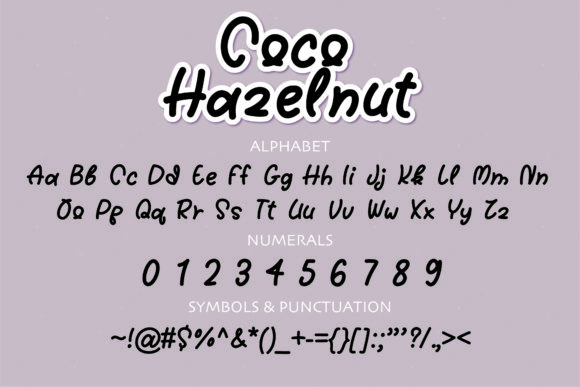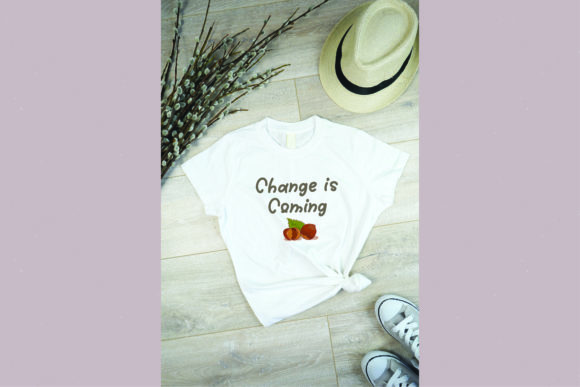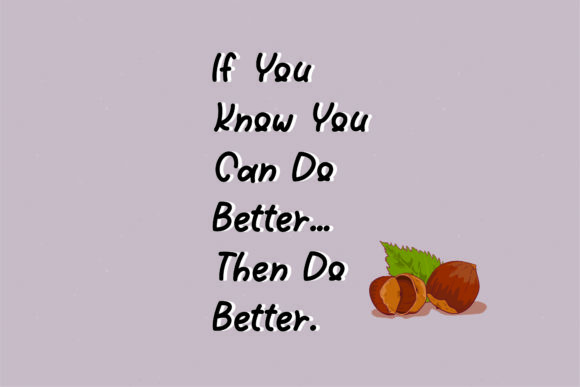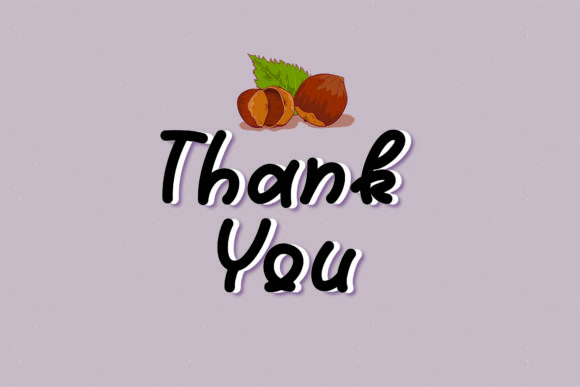
Coco Hazelnut Font: The Perfect Addition to Your Design Arsenal
Are you a designer or crafter looking for a font that can add a personal touch to your creations? Look no further than the Coco Hazelnut font. This adorable, handwritten font is perfect for a variety of design projects, from chalkboard quotes to teaching materials. In this article, we’ll dive into the features and benefits of the Coco Hazelnut font and explore how it can elevate your designs.
What is Coco Hazelnut Font?
Coco Hazelnut is a cute and simple lettered handwritten font designed to mimic the look of chalkboard writing. Its authentic, hand-crafted feel makes it an excellent choice for designers and crafters who want to add a personal and realistic touch to their work. The font’s playful, whimsical vibe is sure to capture the attention of your audience and make your designs stand out.
Key Features of Coco Hazelnut Font
- Cute and Simple Design: The Coco Hazelnut font boasts a charming, uncomplicated design that is easy to read and visually appealing.
- Handwritten Style: The font’s handwritten style gives it a personal, human touch that is perfect for creating a connection with your audience.
- Chalkboard-Inspired Look: The font’s chalkboard-inspired look makes it an excellent choice for creating quotes, posters, and other designs that require a rustic, nostalgic feel.
- Versatile: The Coco Hazelnut font can be used for a wide range of design projects, from teaching materials to social media graphics.
Benefits of Using Coco Hazelnut Font
So, why should you choose the Coco Hazelnut font for your designs? Here are just a few benefits of using this versatile font:
- Adds a Personal Touch: The Coco Hazelnut font’s handmade look adds a personal touch to your designs, making them more relatable and engaging.
- Enhances Readability: The font’s clear, easy-to-read design ensures that your message gets across to your audience quickly and effectively.
- Time-Saving: With the Coco Hazelnut font, you can create professional-looking designs in no time, saving you hours of work and effort.
- Unique and Creative: The font’s unique, creative design helps you stand out from the crowd and showcase your brand’s personality.
Who Can Benefit from Coco Hazelnut Font?
The Coco Hazelnut font is perfect for a variety of designers and crafters, including:
- Graphic Designers: Add a personal touch to your clients’ designs and make them more engaging.
- Crafters: Use the Coco Hazelnut font to create unique, handmade products that stand out from the crowd.
- Teachers: Create engaging teaching materials and classroom decor with this adorable font.
- Social Media Influencers: Use the Coco Hazelnut font to create eye-catching social media graphics that capture your audience’s attention.
Tips for Using Coco Hazelnut Font
Here are a few tips for getting the most out of the Coco Hazelnut font:
- Pair with Other Fonts: Experiment with pairing the Coco Hazelnut font with other fonts to create a unique and visually appealing design.
- Use in Combination with Images: Combine the Coco Hazelnut font with images or graphics to create a stunning visual effect.
In conclusion, the Coco Hazelnut font is a versatile, charming font that can add a personal touch to your designs. Its authentic, handwritten look and chalkboard-inspired style make it perfect for a wide range of design projects, from chalkboard quotes to teaching materials. With its ease of use, readability, and creative design, the Coco Hazelnut font is sure to become a staple in your design arsenal.